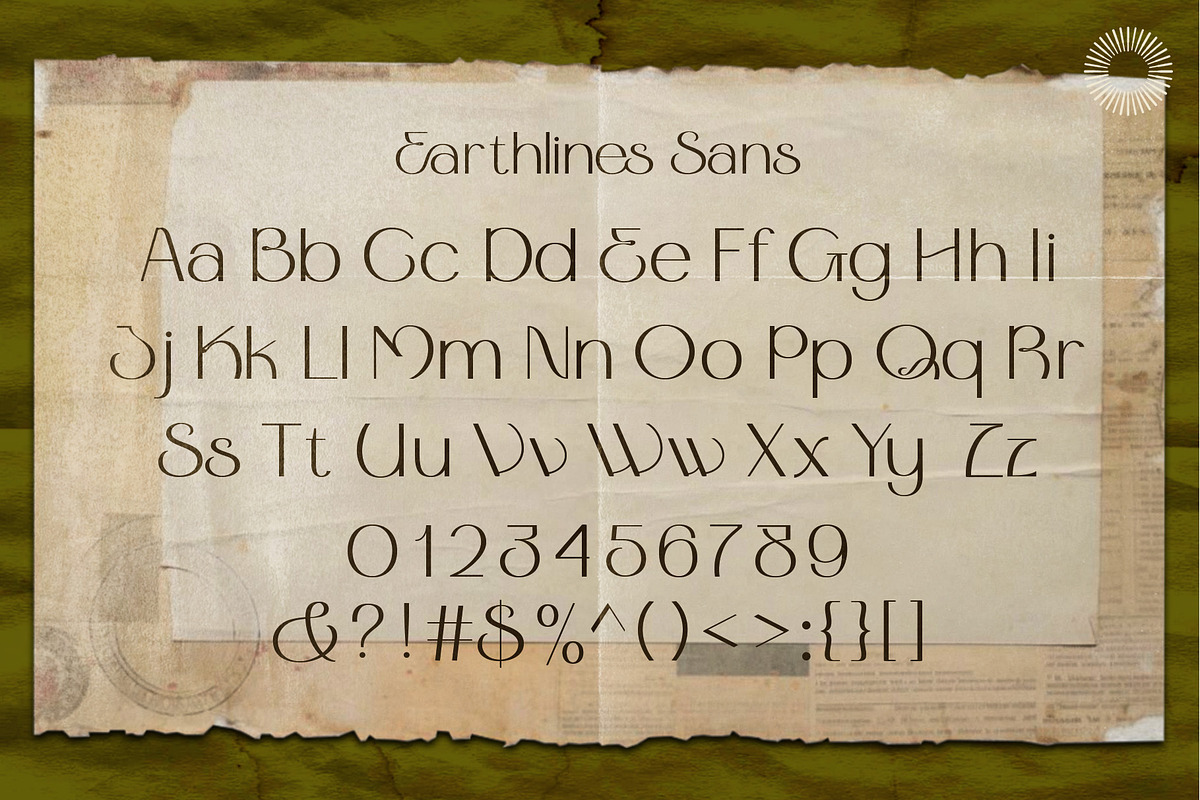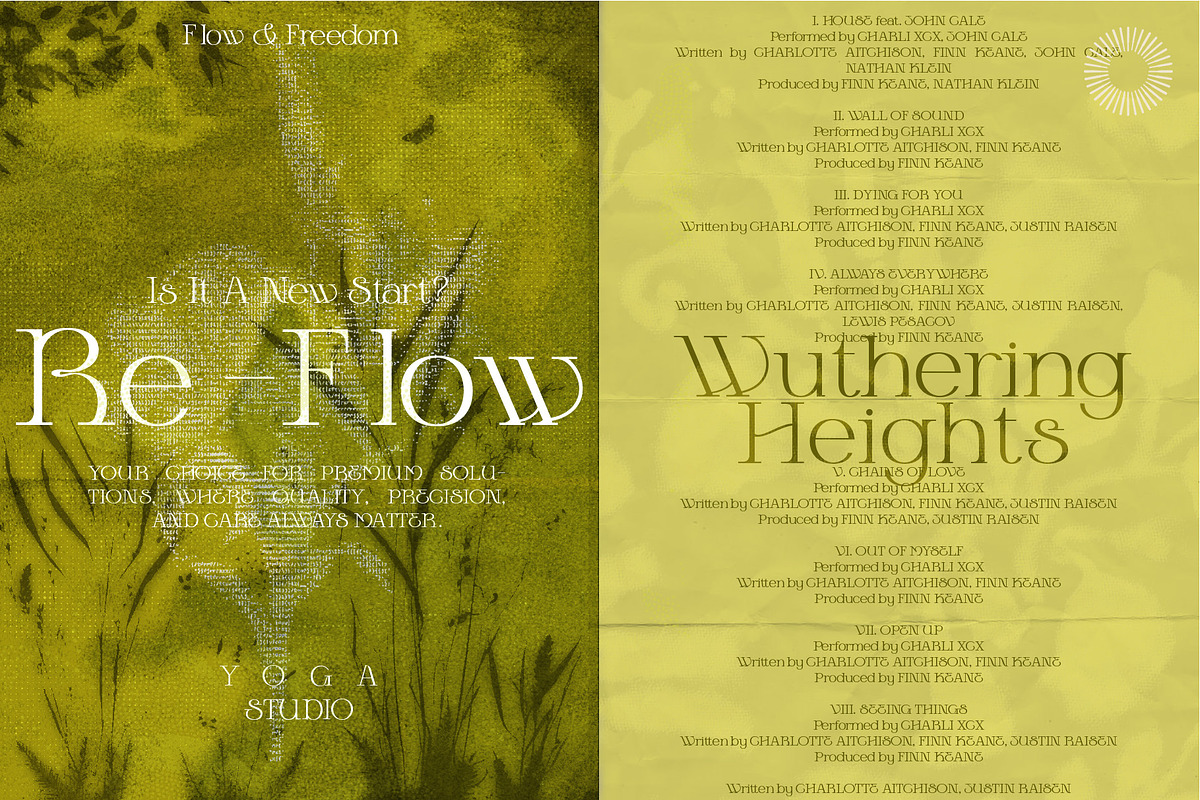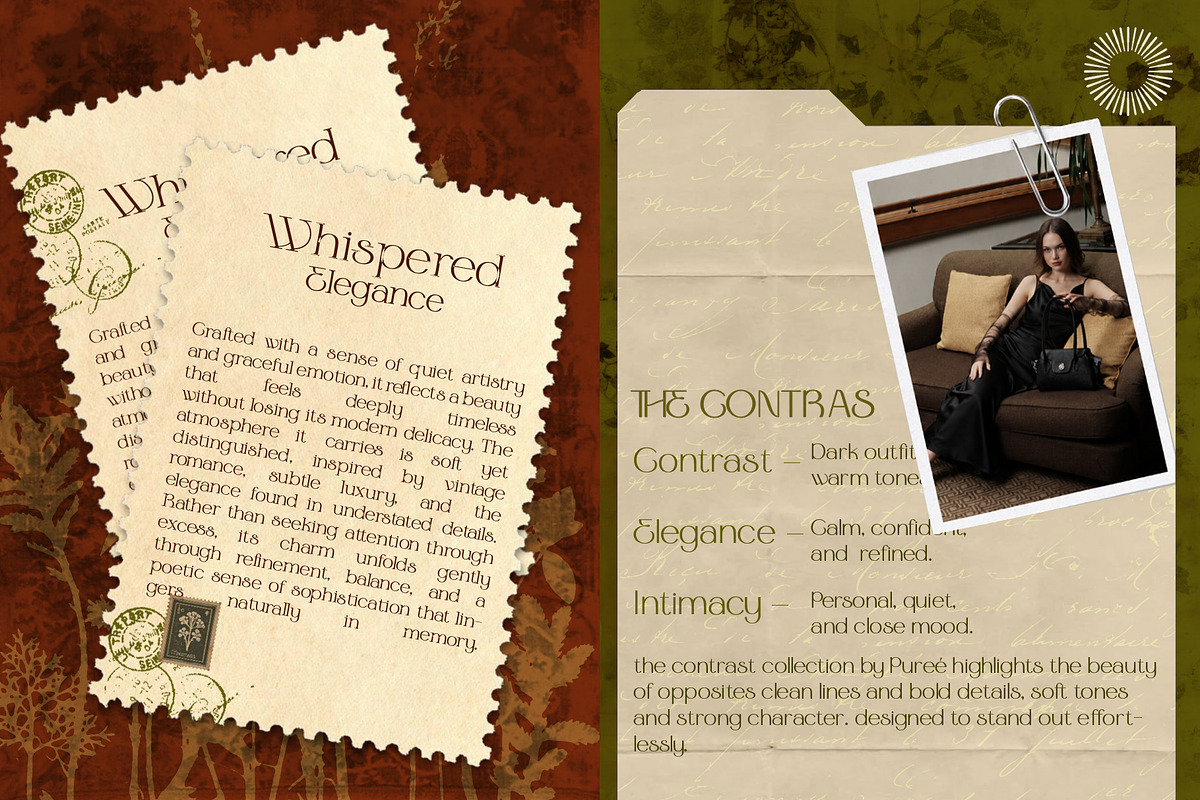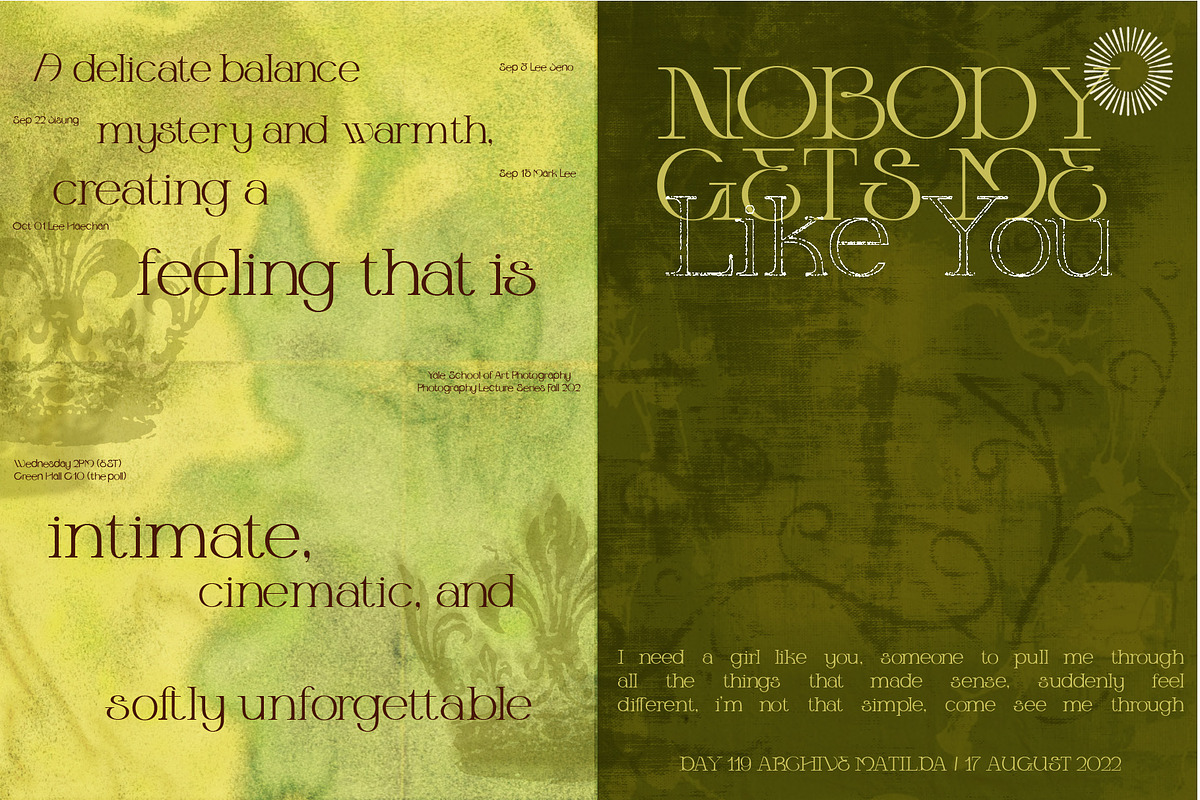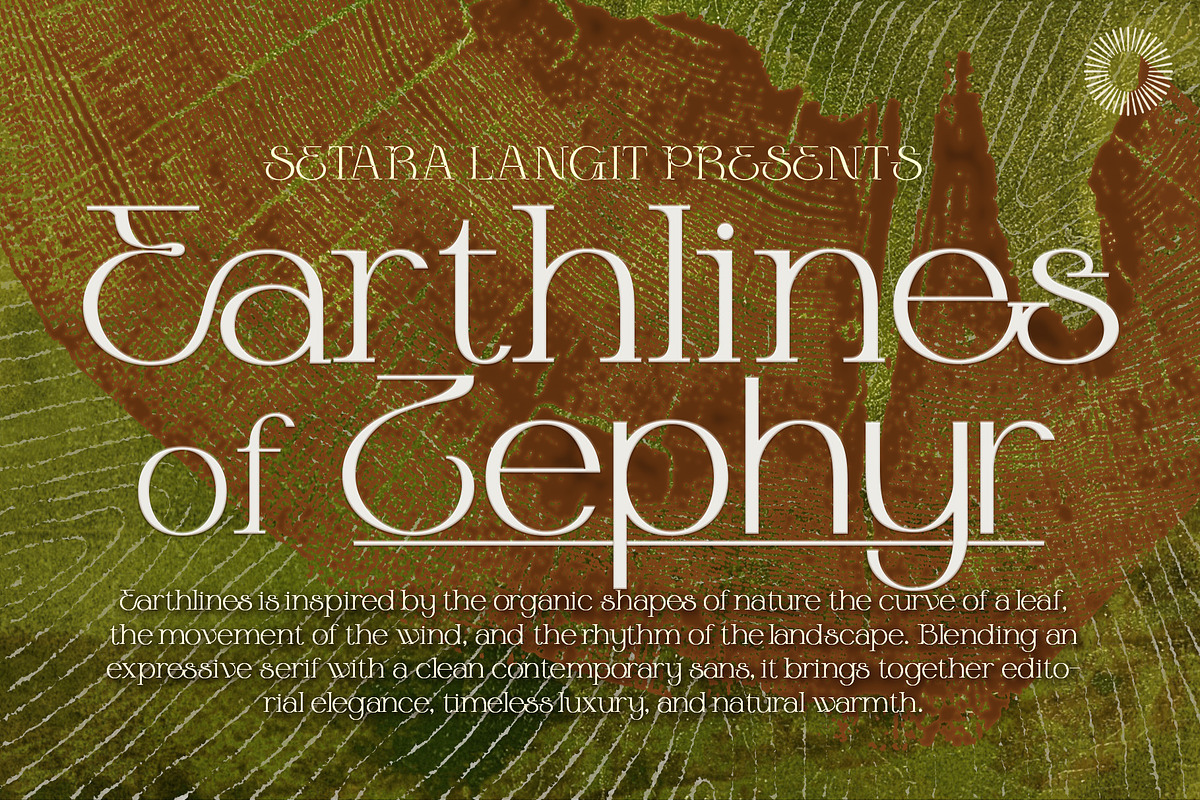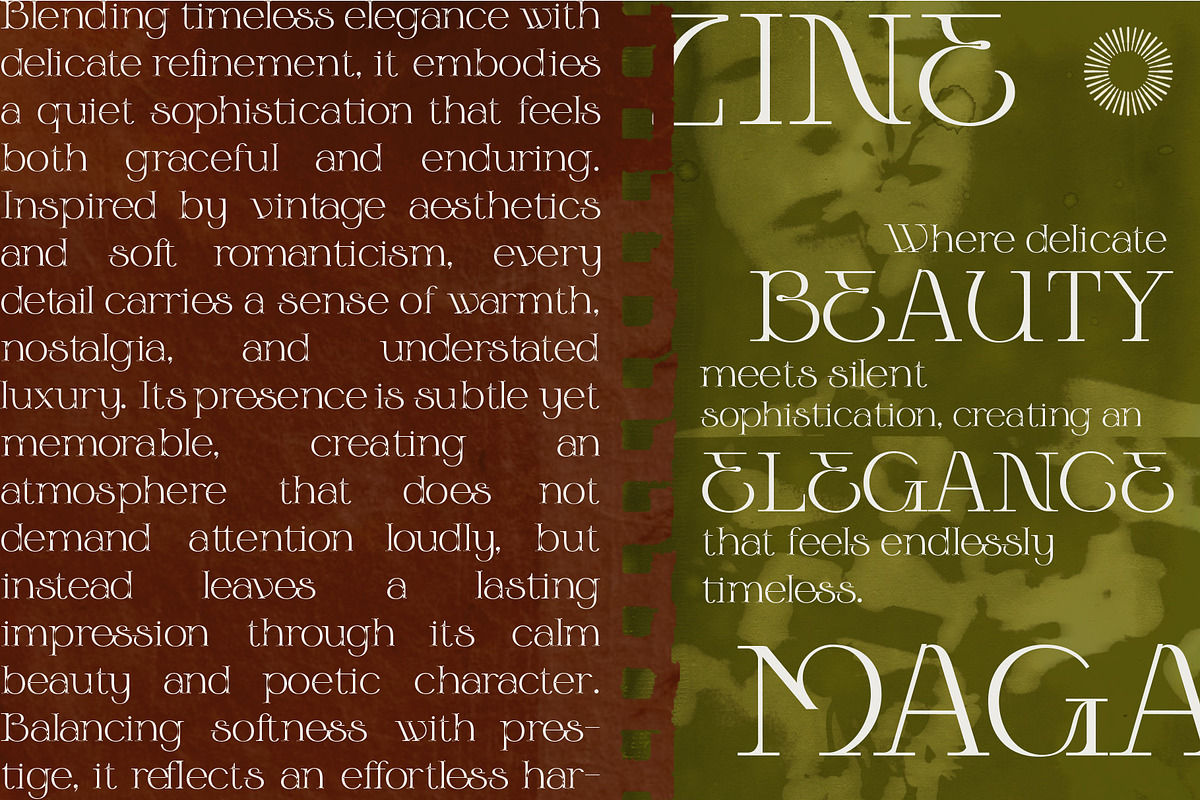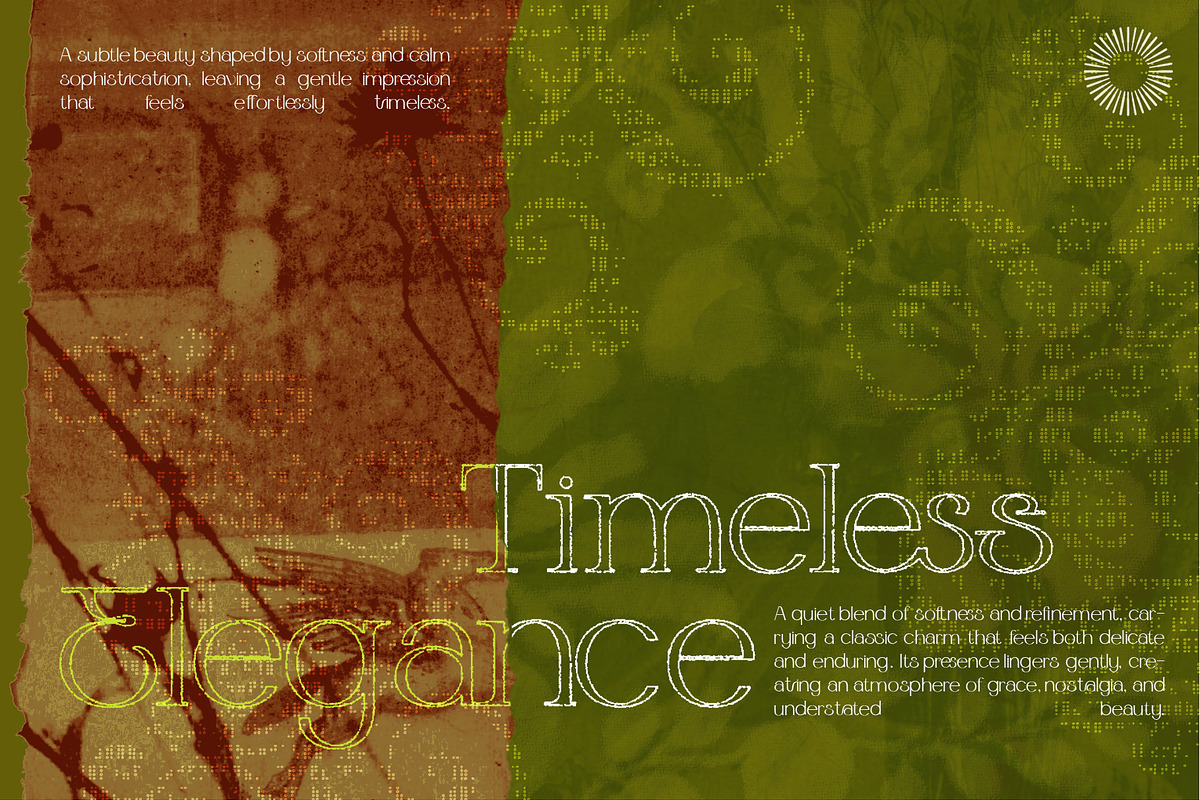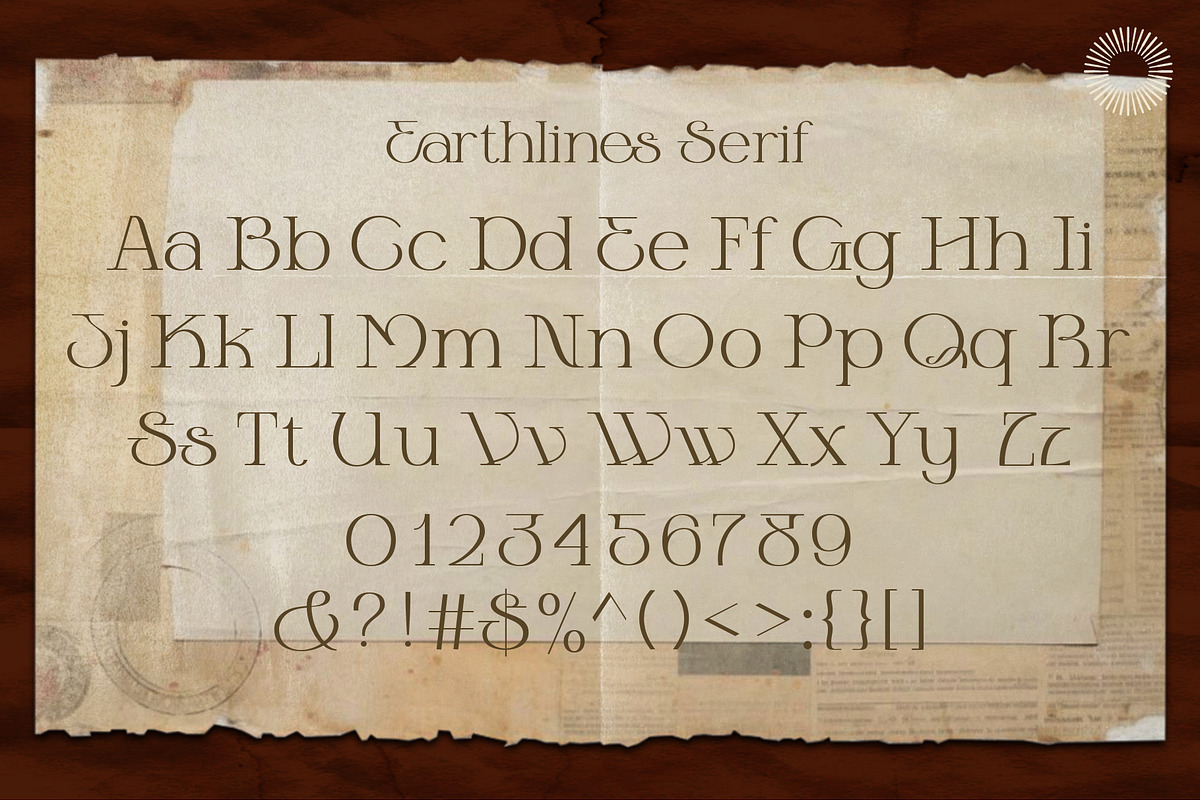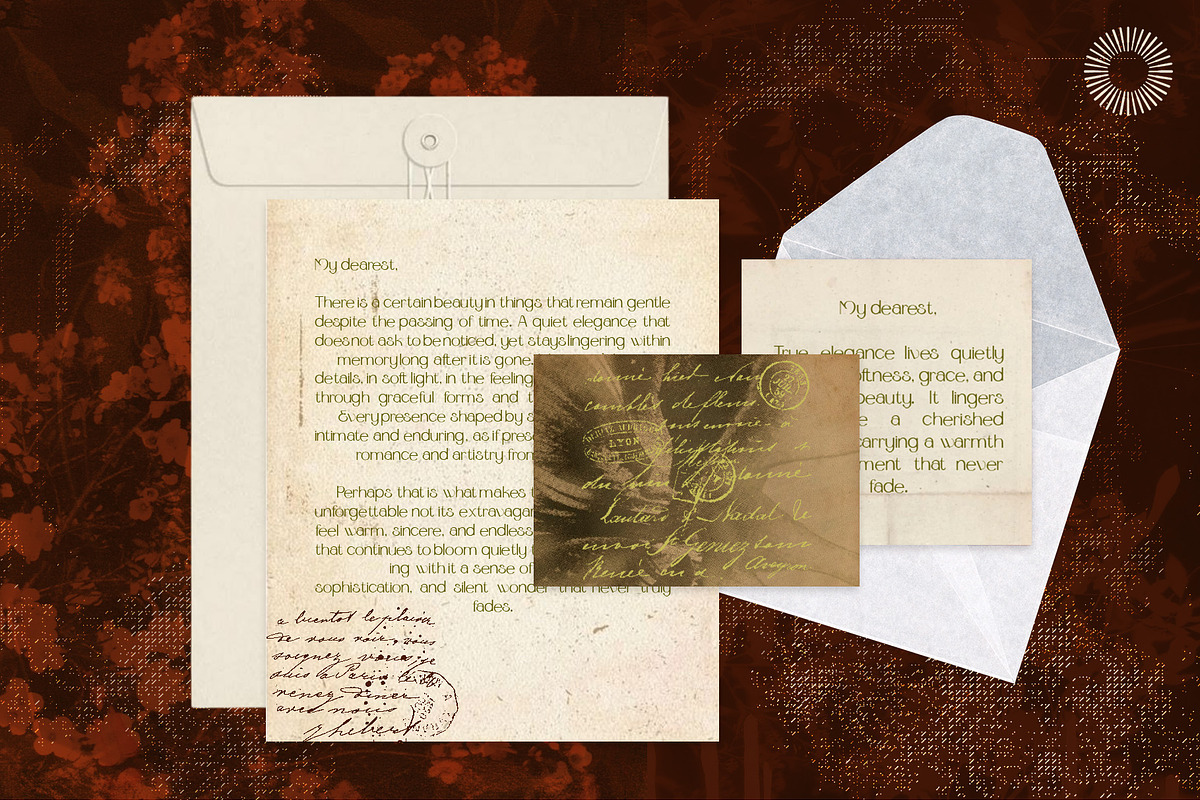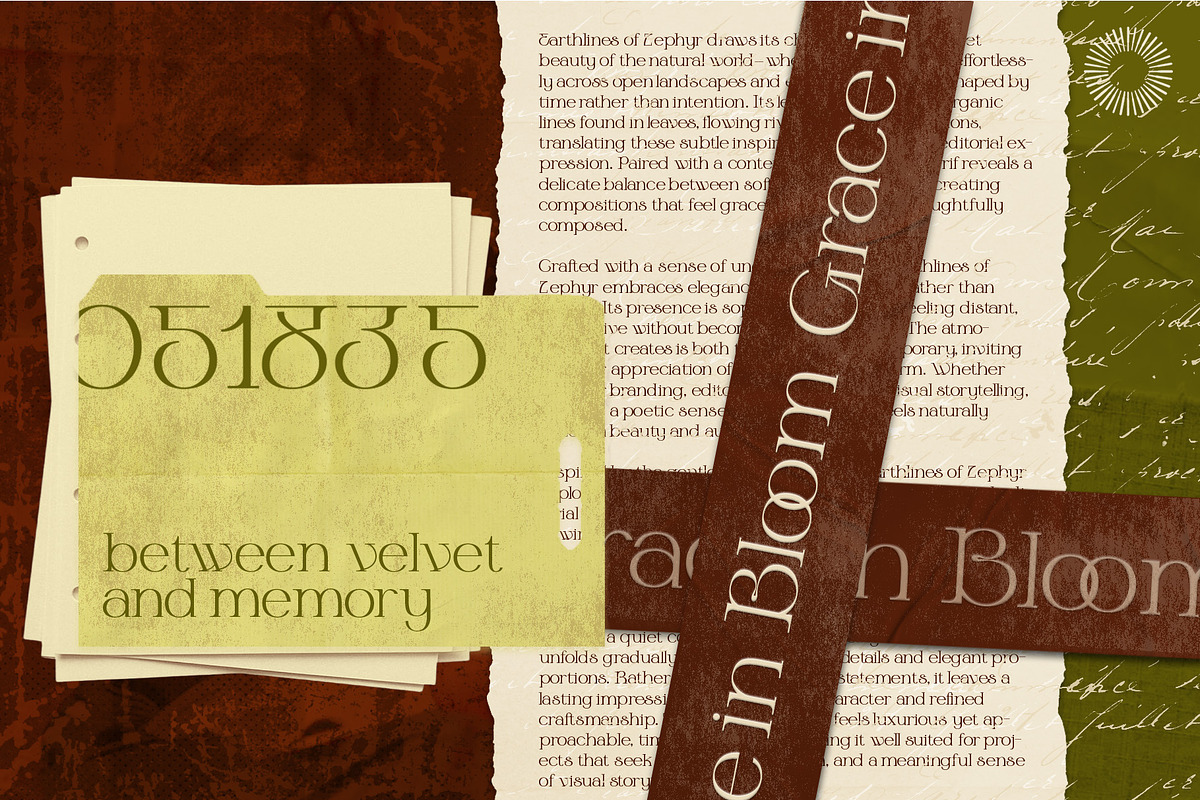
Earthlines - Organic Serif & Sans
Earthlines – Organic Serif & Sans Font Duo
Earthlines is a thoughtfully crafted Organic Serif & Sans font duo inspired by the organic beauty of nature. Drawing from the graceful curves of leaves, the movement of the wind, and the rhythm of natural landscapes, Earthlines combines an expressive high-contrast serif with a clean contemporary sans serif to create a typography system that feels both refined and effortless.
Designed for creatives who seek elegance with character, Earthlines balances editorial sophistication, timeless luxury, and natural warmth. The serif features distinctive organic curves and artistic details, while the accompanying sans serif provides modern clarity and versatility, making them perfect for pairing or using independently.